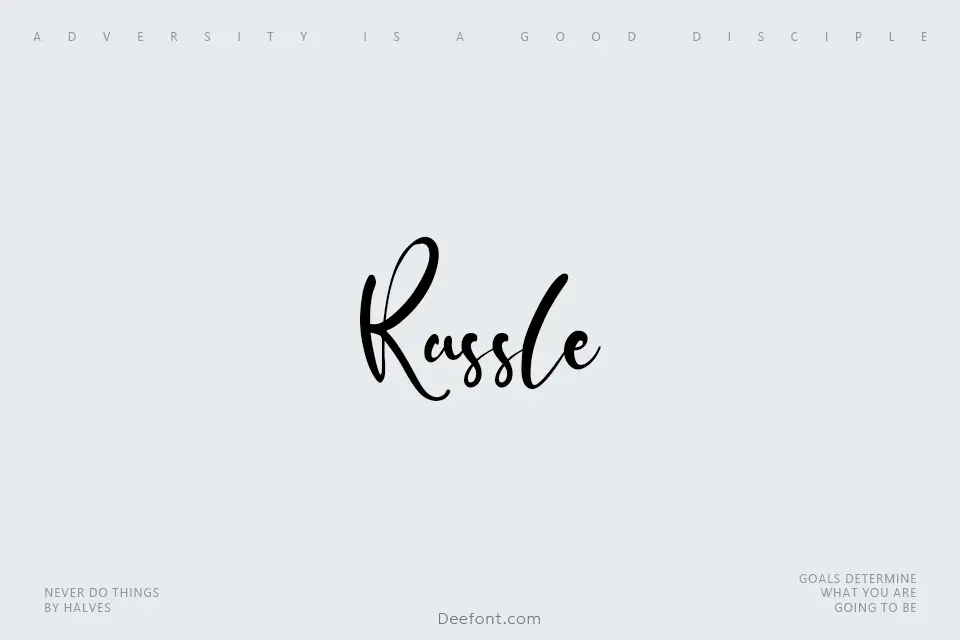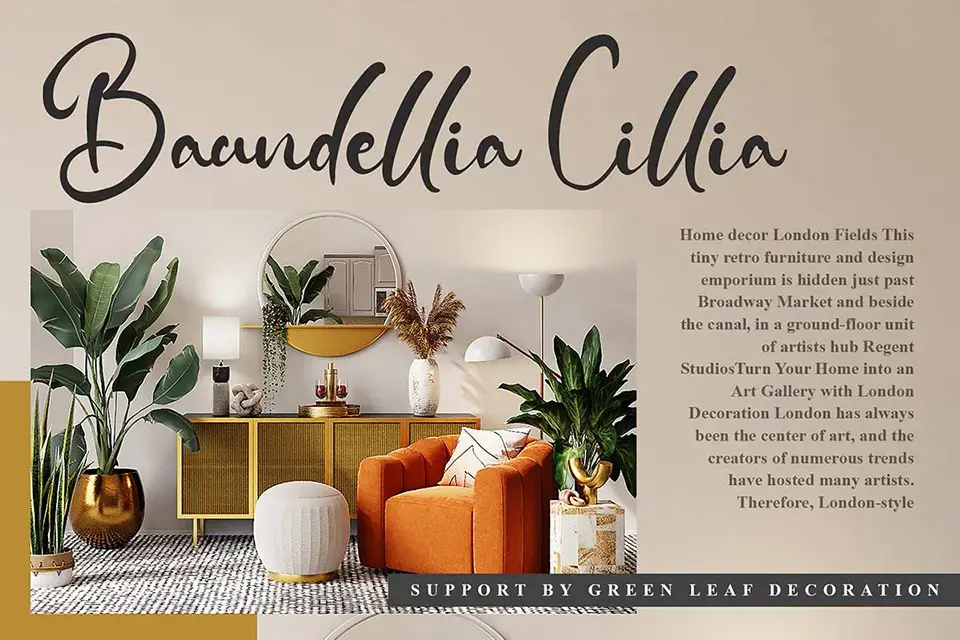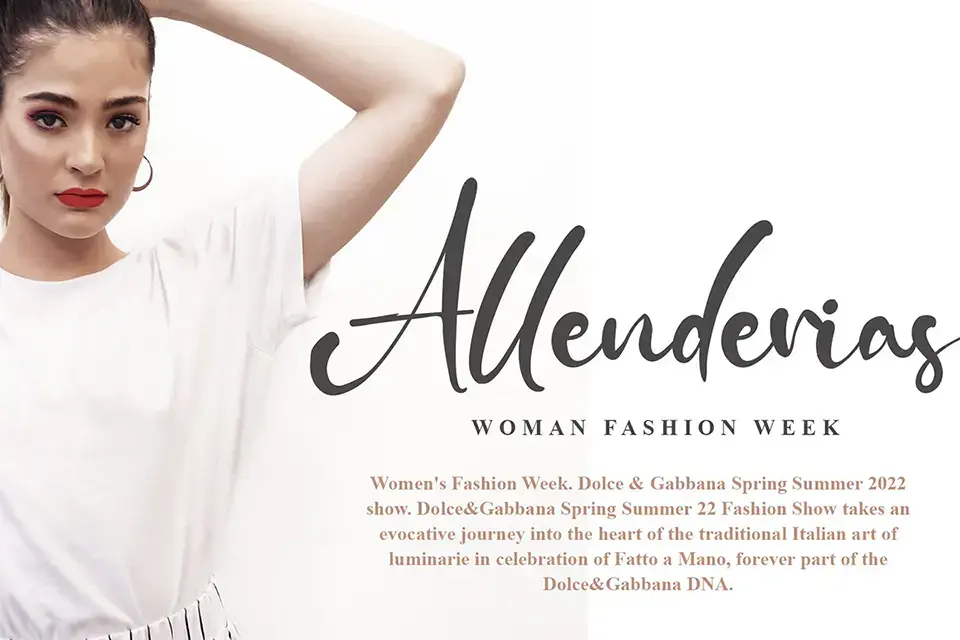
Russle Font
Russle Font is a dynamic handwritten script designed by Kong Font. With its energetic strokes and natural flow, this typeface captures the essence of quick, casual lettering. It is ideal for eye-catching logos, trendy social media posts, product packaging, and event posters. The font’s authentic texture brings a lively and approachable vibe to any creative project.